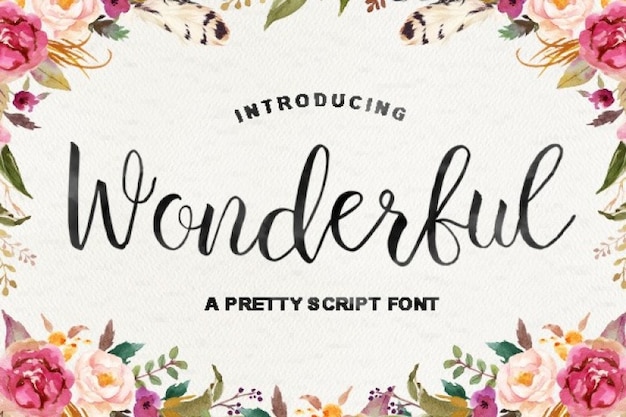
Wonderful Script Font
Wonderful is a pretty script font. Its colours and design will add a delicate and sofisticated touch to your projects, Perfect for invitation cards, as a background or in a flyer. Download it now and set out on a new journey of creativity!